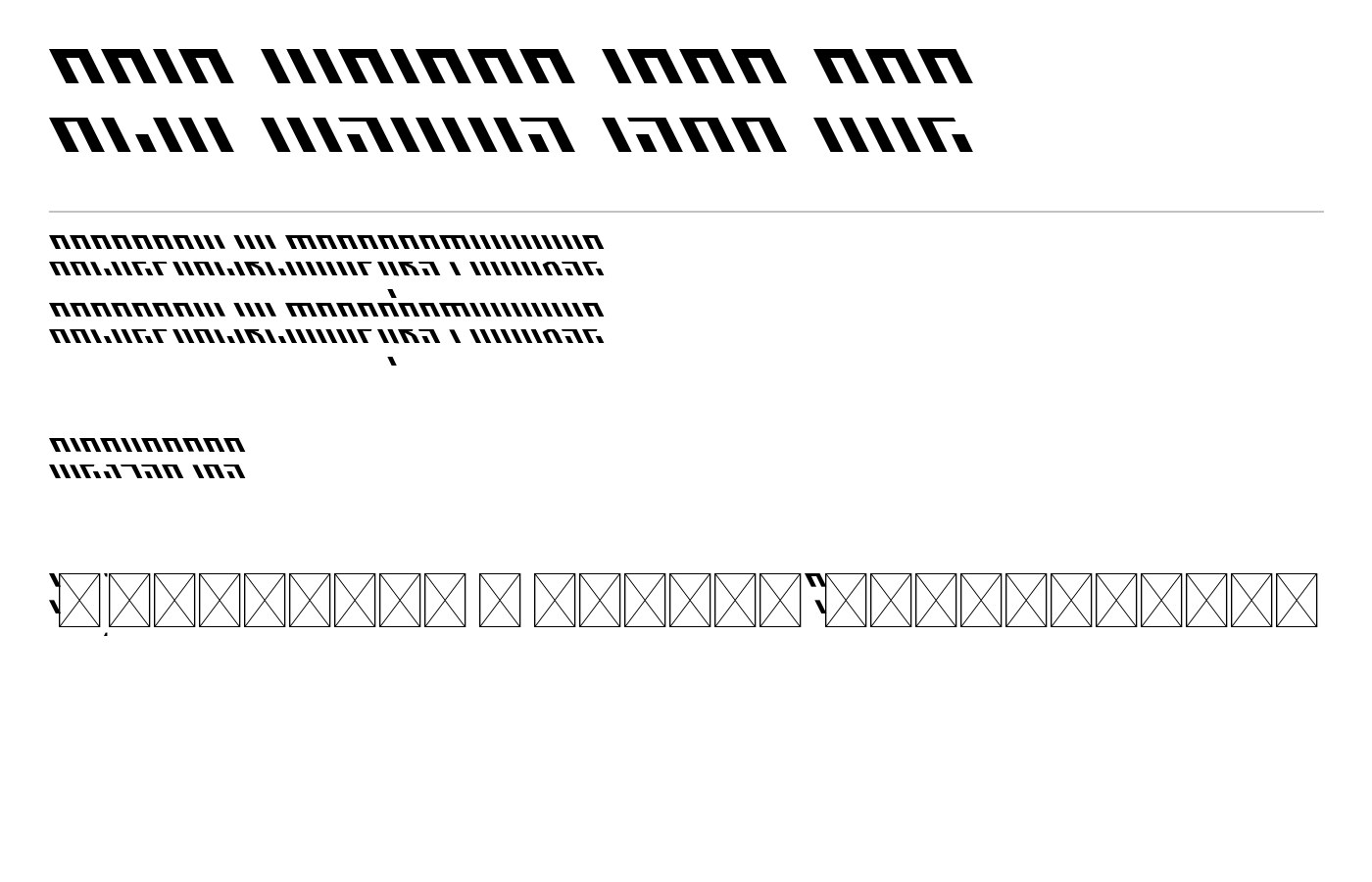
Acid Visions 1986 One is a bold, condensed sans serif font with a futuristic and angular style, featuring sharp, geometric letterforms that evoke a retro 1980s digital vibe. Its high contrast strokes and distinctive slanted shapes create a striking, tech-inspired personality, making it perfect for eye-catching headlines, logos, and designs that want to capture a nostalgic yet modern feel. This font works well in branding and posters where a strong, unconventional statement is needed.
Acid Visions 1986 One Font
About Acid Visions 1986 One Font
| Font family | Acid Visions 1986 One Font |